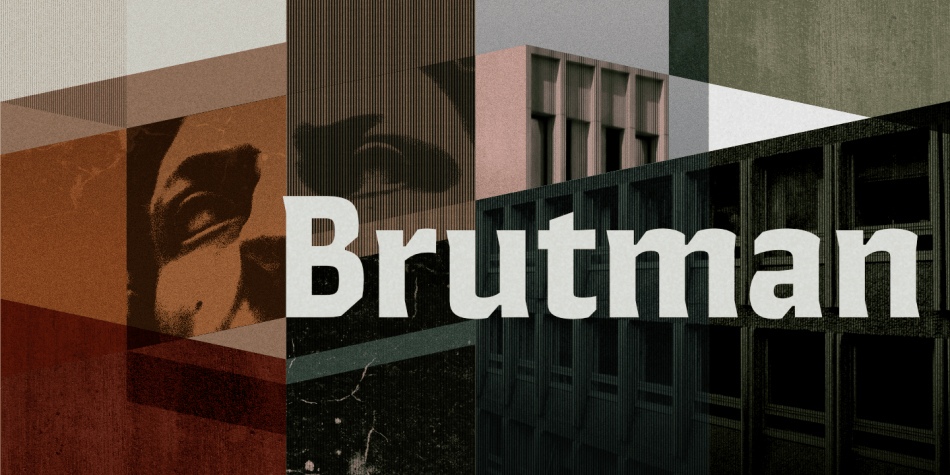
Brutman Font
Brutman Font is perfect for industrial branding projects, architectural firm identities, construction company logos, raw material marketing, urban development communications, minimalist design applications, concrete product packaging, and brutalist advertising campaigns. This commanding typeface works exceptionally well in both digital applications and print media where architectural strength and industrial authenticity are fundamental design requirements.
What makes Brutman Font so exciting is its uncompromising interpretation of brutalist architecture through bold letterforms that embody the raw concrete aesthetic and functional honesty of modernist construction philosophy. The font features massive characters with architectural proportions, industrial angles, and structural details that communicate unwavering strength, utilitarian purpose, and the bold vision of brutalist design movements. Its powerful personality and architectural heritage make it ideal for brands seeking to establish authority in construction and design sectors while appealing to audiences who appreciate honest materials, functional beauty, and the monumental scale of urban infrastructure.
The Brutman Font family includes multiple weight variations from heavy to ultra-bold, along with condensed styles and structural alternates. Each style maintains the typeface's brutalist character while offering comprehensive character sets including industrial numerals, architectural punctuation marks, and special symbols designed to enhance construction communications and structural branding efforts across various industrial contexts.
This remarkable typeface represents the perfect fusion of brutalist philosophy and contemporary typography for architectural and construction industries. Whether you're developing construction company identities, creating architectural presentations, or designing urban development materials, Brutman Font Free Download delivers the structural integrity and versatility needed to establish credibility with professional audiences. The font's brutalist aesthetic makes it particularly effective for architectural firms, construction companies, urban planners, and organizations celebrating the bold vision and functional honesty of modernist design principles.
The meticulously engineered brutalist construction and optimized structural performance in Brutman Font ensure maximum architectural impact while maintaining clear communication across all industrial applications. Its commanding presence makes it ideal for structural branding, architectural communications, and industrial marketing where its full brutalist character can create lasting impressions and establish immediate association with strength, functionality, and the monumental power of honest architectural expression.